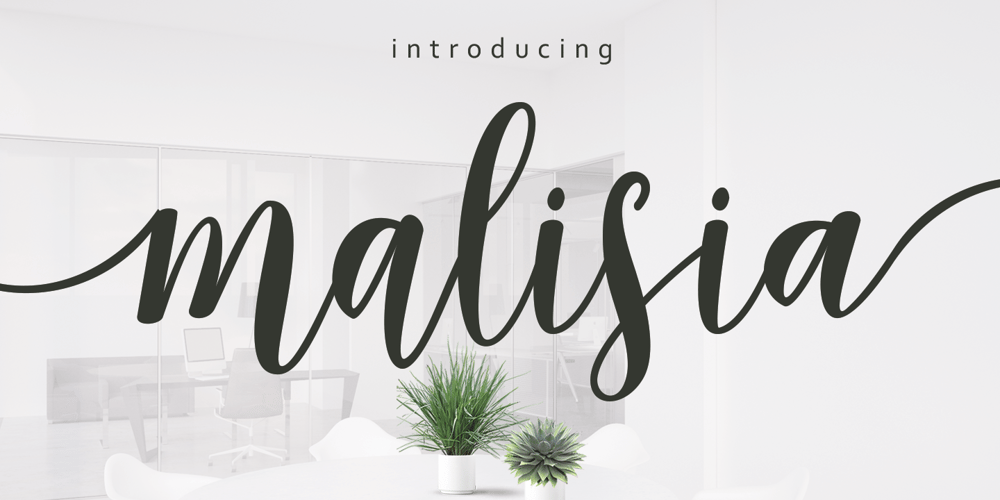
Malisia Script Font Family was designed by Bustami Harun and published by Genesislab. Malisia Script contains 1 styles and family package options. NEW UPDATES MORE THAN 80 CHARACTER SWASH & CONTEXTUAL ALTERNATESHi … Introducing the latest styles Malisia Script with the kind of modern hand scratches, I hope you are interested in this font, if you want to use for your work this font can be used easily and simply because there are a lot of features in it to contain a complete set of letters lower and uppercase letters, assorted punctuation, numbers, and multilingual support. font also contains several ligatures and alternate style Stylistic Sets for those of you who have software that is able to work OpenType (Photoshop / Illustrator / InDesign).Malisia Script is suitable use for market design developed at this time, this font has a model Trendy, natural and gentle, with this font you can take advantage of the opportunity in every moment of one wonderful way to highlight the celebration of the feast of your best, because this font will be advocates for purposes such as wedding invitations, party, graduation, birthday, gathering, etc.This Font has given PUA unicode (specially coded fonts).if you have a problem?Contact me: genesislabstudio@gmail.com